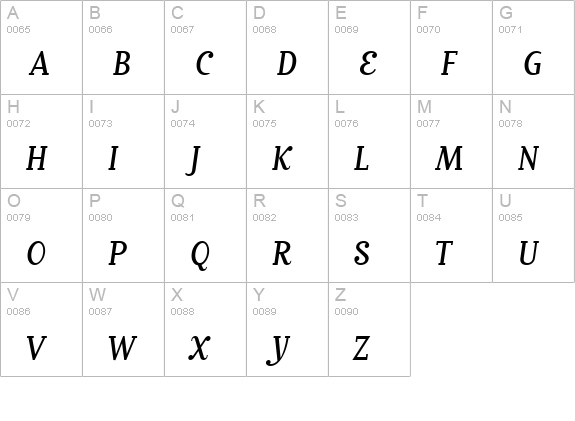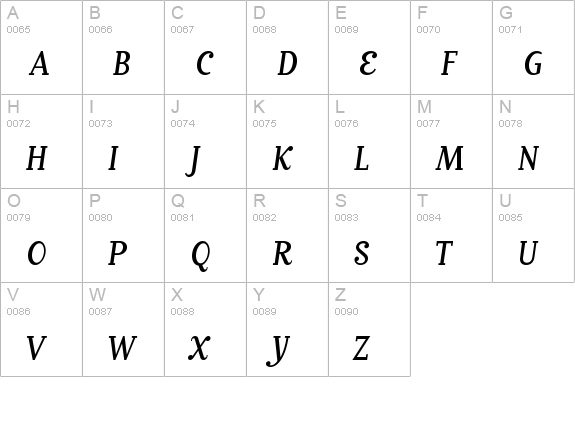
MatrixScriptRegularLining Regular Font Details
MatrixScriptRegularLining Regular is the standard, neutral variant in the MatrixScriptRegularLining typeface family \xE2\x80\x94 well suited to general body text, paragraphs, and standard typographic work.
MatrixScriptRegularLining Regular font is a modern and stylish typeface that exudes sophistication and elegance. With its clean lines and balanced proportions, this font is perfect for a wide range of design projects, from branding to editorial layouts. The sleek and contemporary design of MatrixScriptRegularLining Regular font makes it a versatile choice for both digital and print applications. Whether you're designing a website, creating a logo, or publishing a magazine, this font will add a touch of professionalism and refinement to your work. Best of all, MatrixScriptRegularLining Regular font is available for free download at FontsMarket.com. You can easily access this high-quality font and enhance your design projects without any cost. Don't miss out on the opportunity to elevate your typography game with this beautiful and elegant typeface.